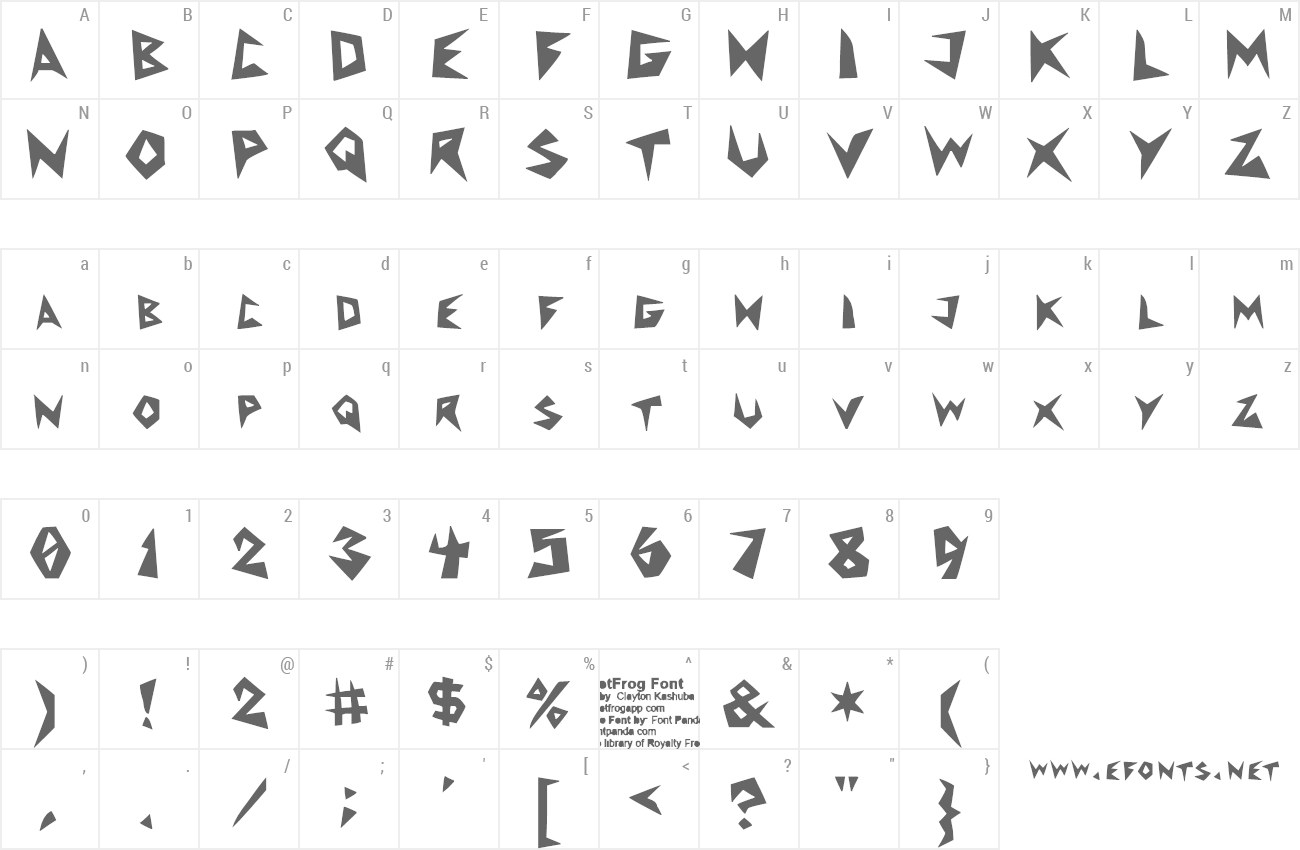
Preview and download RocketFrog Font. Created by Clayton Kashuba in Fancy Cartoon styles with 100% Free license.
RocketFrog Font was created for the mobile game RocketFrog. Designed by Clayton Kashuba Font converted by FontPanda.com Free for use. Royalty free. Enjoy it! |